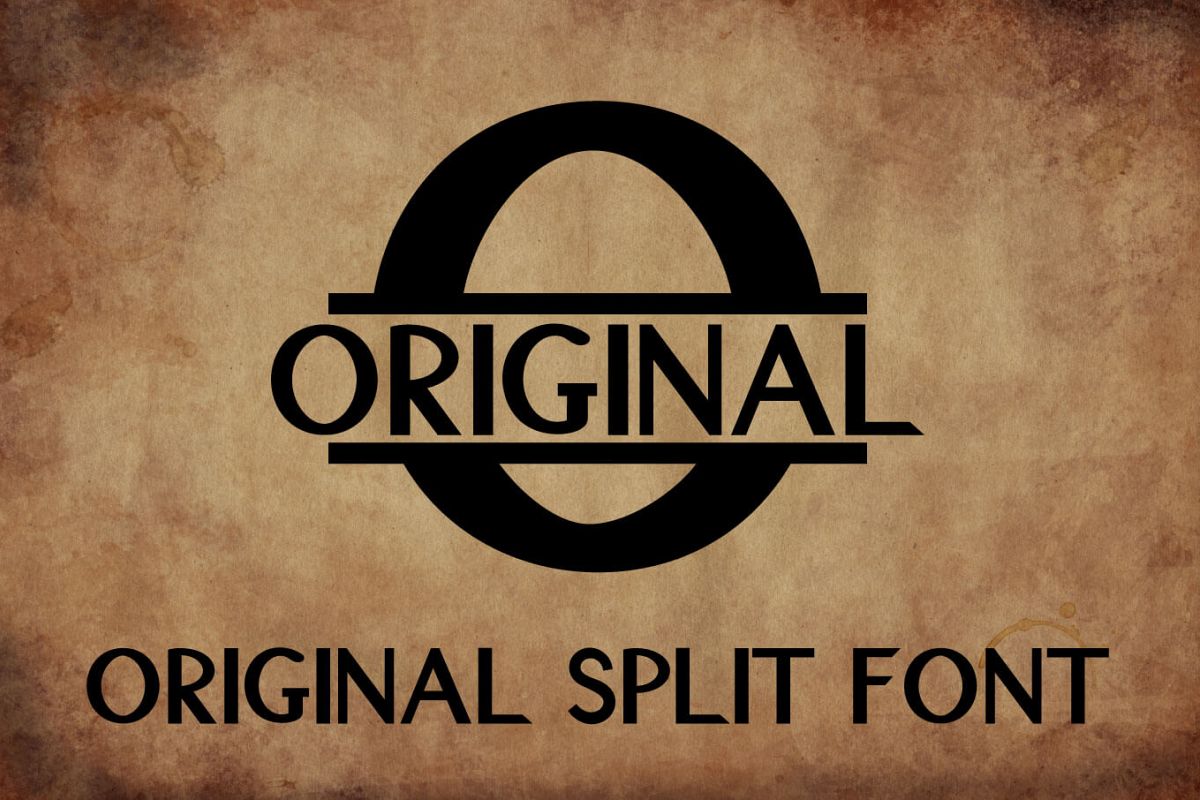
Original Split Font - A Monogram Font
This is our original split monogram font. Use uppercase letters to choose your split letter and then fill it in with the lowercase letters.
• Uppercase: A-Z
• Uppercase: A-Z Split Letters for Monograms
Original Split Font - A Monogram Font